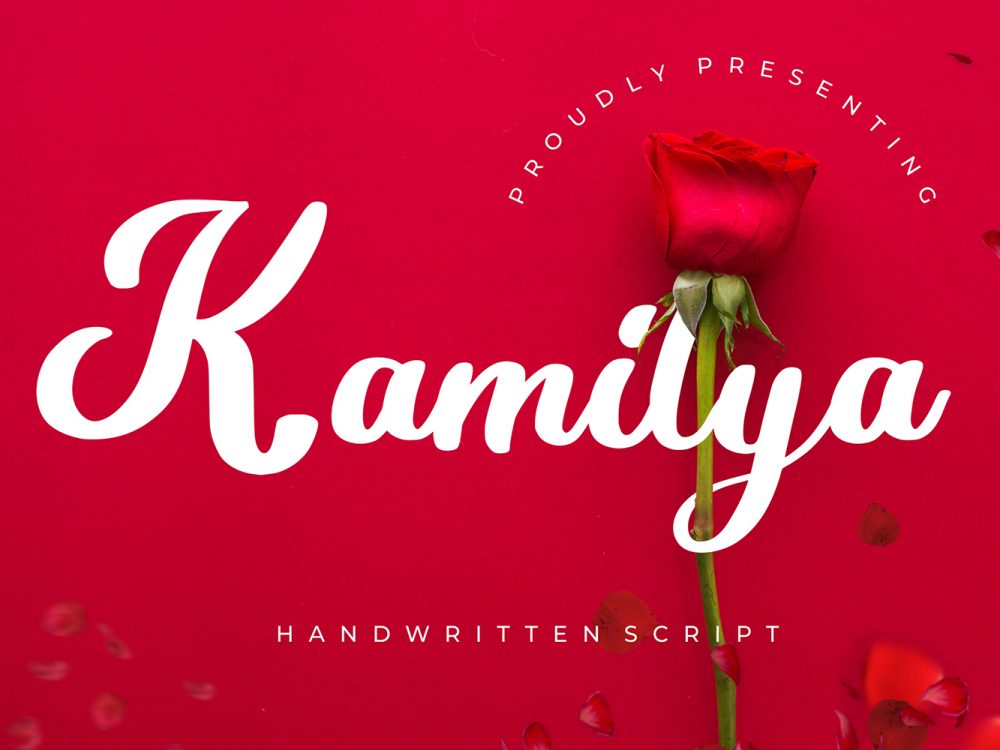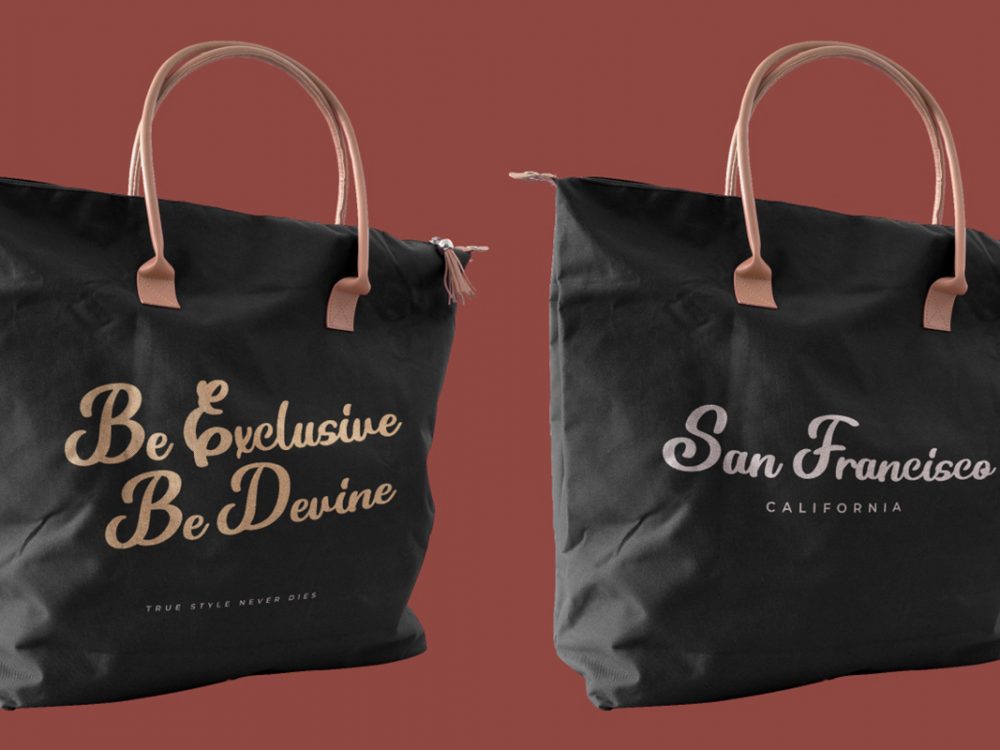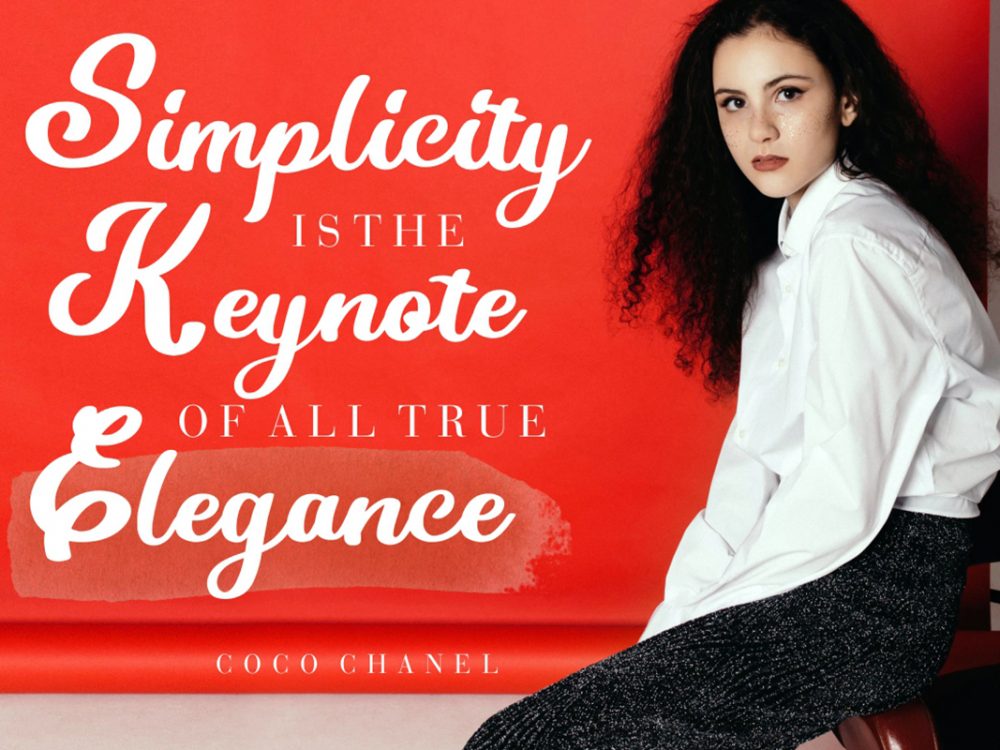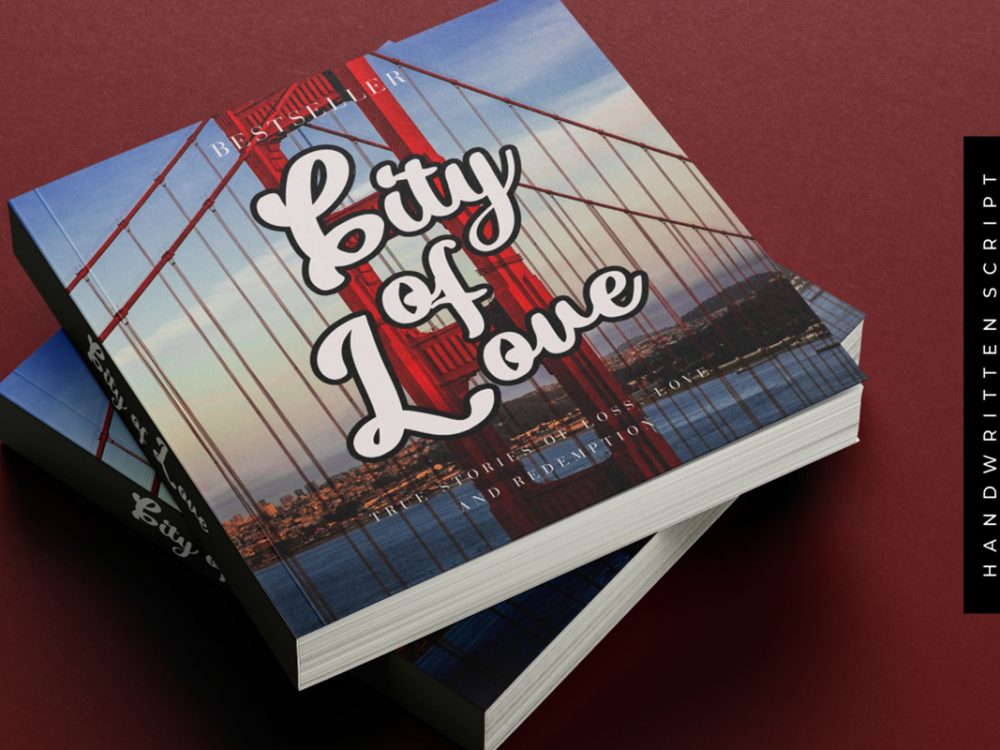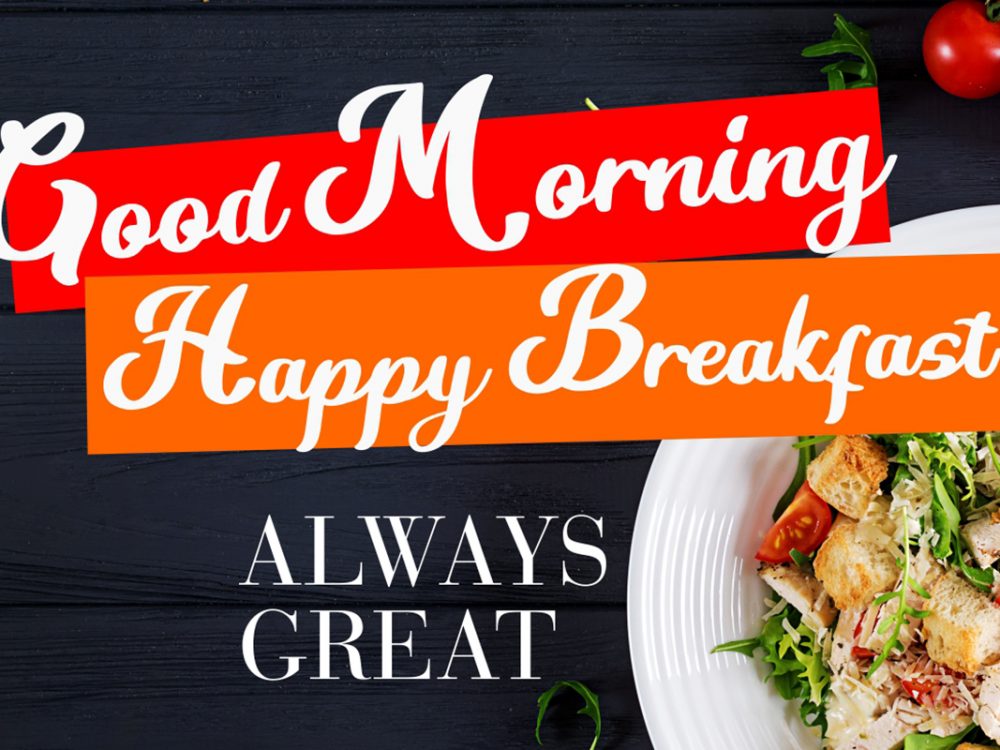
Kamilya Free Font
Kamilya Free Font is an interesting script typeface that features a modern calligraphic style. This font is very suitable for creating various projects that require a scripted handwritten font. You can use this font to create memorable romantic posters, wedding invitations, greeting cards, branding, flyers, t-shirt and pillow prints, and more. Improve your professional level using this font. If you like it don’t forget to check out the full version.